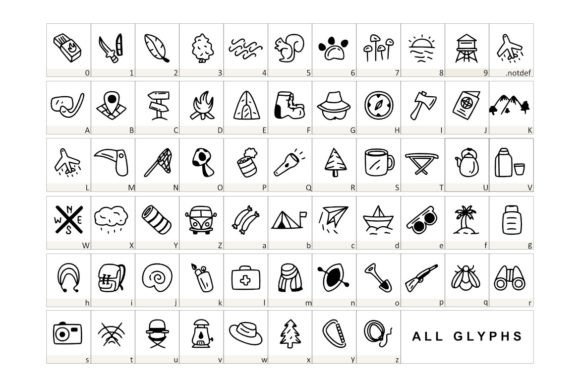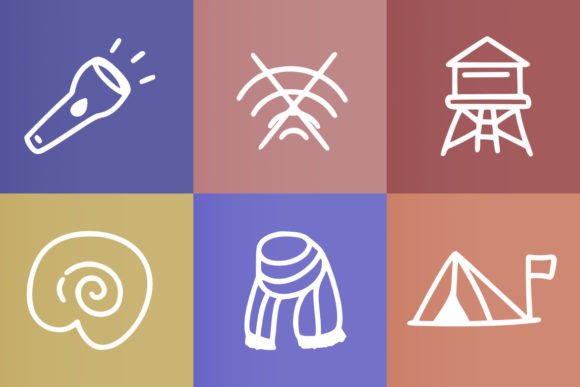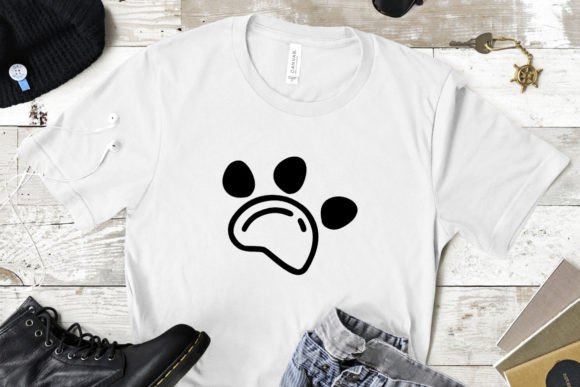
Introducing Adventure Font: The Cute and Versatile Dingbats Font for Your Creative Projects
Are you a designer, crafter, or DIY enthusiast looking for a font that can add a touch of excitement and playfulness to your projects? Look no further than Adventure Font, a charming and versatile dingbats font that’s perfect for a wide range of creative endeavors. In this article, we’ll explore the features and benefits of Adventure Font, and show you how it can elevate your designs and bring your ideas to life.
What is Adventure Font?
Adventure Font is a unique and creative dingbats font that’s designed to inspire adventure and imagination. With its cute and colorful characters, this font is perfect for adding a touch of whimsy and fun to your projects. Whether you’re creating stickers, posters, t-shirts, cards, or apparel graphics, Adventure Font is the perfect choice.
Key Features of Adventure Font
- Cute and playful characters: Adventure Font features a range of adorable characters, from animals and objects to symbols and icons.
- Versatile and flexible: This font is perfect for a wide range of projects, from digital designs to print materials.
- Scalable: This font is designed to be scalable, so you can use it for projects of all sizes.
Why Choose Adventure Font?
So why choose Adventure Font over other dingbats fonts? Here are just a few reasons:
- Unique and eye-catching: Adventure Font is a one-of-a-kind font that’s sure to grab attention and stand out from the crowd.
- Easy to read: Despite its playful nature, Adventure Font is easy to read and understand, making it perfect for use in a variety of contexts.
- Customizable: With Adventure Font, you can create custom designs and graphics that reflect your unique style and brand.
Project Ideas for Adventure Font
So what can you create with Adventure Font? Here are just a few ideas to get you started:
- Stickers: Use Adventure Font to create fun and colorful stickers for laptops, water bottles, or any other surface.
- Posters: Create eye-catching posters for events, promotions, or just for fun.
- T-shirts and apparel: Add a touch of adventure to your t-shirts, hoodies, and other apparel with Adventure Font.
- Cards and invitations: Use Adventure Font to create custom cards and invitations for parties, birthdays, and other special occasions.
- Apparel graphics: Add Adventure Font to your apparel graphics, such as tote bags, hats, or socks.
Tips for Using Adventure Font
Here are a few tips for getting the most out of Adventure Font:
- Experiment with colors: Adventure Font looks great in a variety of colors, so don’t be afraid to experiment and find the perfect hue for your project.
- Mix and match characters: Combine different characters from Adventure Font to create unique and interesting designs.
- Use it with other fonts: Adventure Font pairs well with other fonts, so feel free to get creative and combine it with your favorite typefaces.